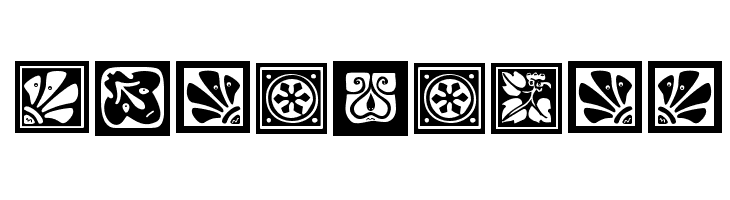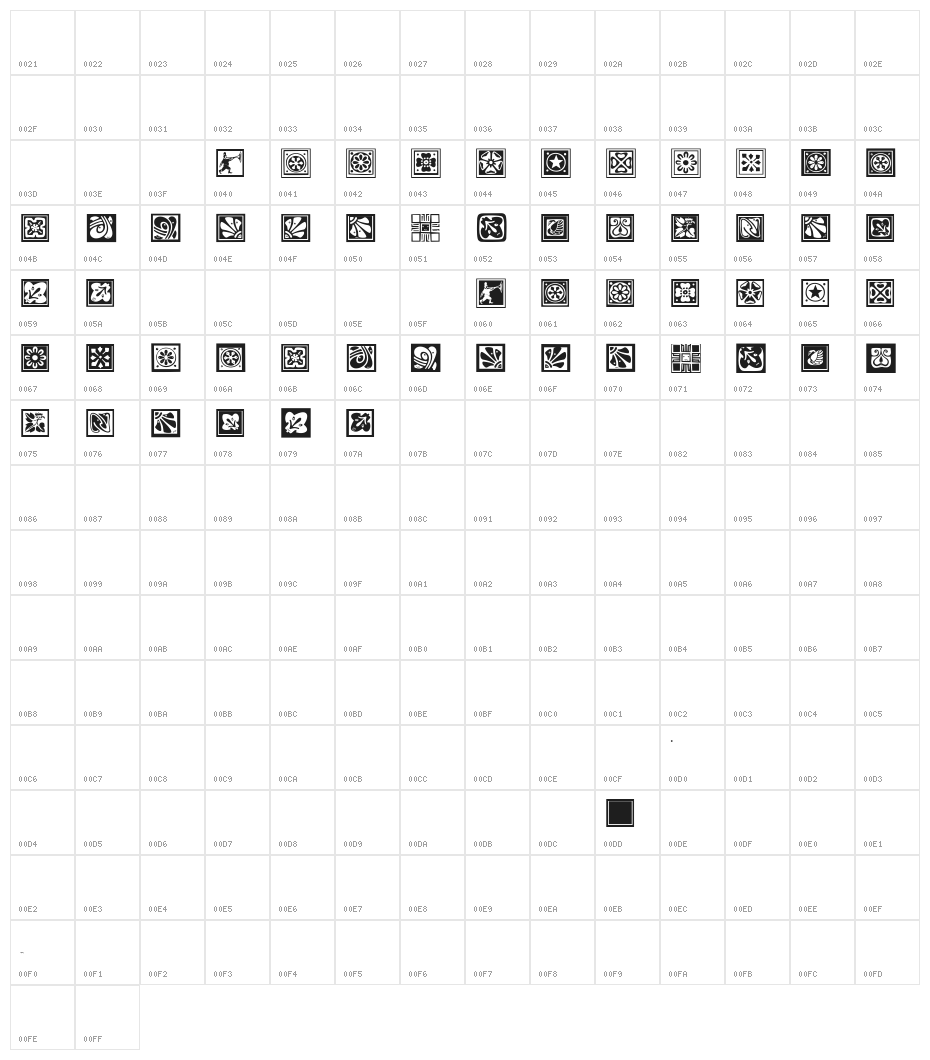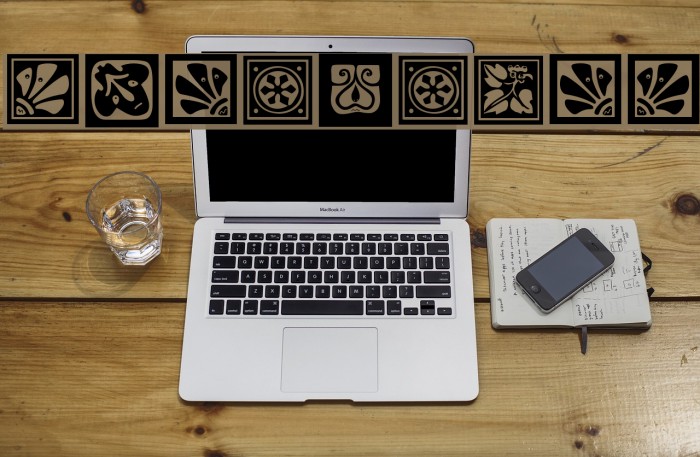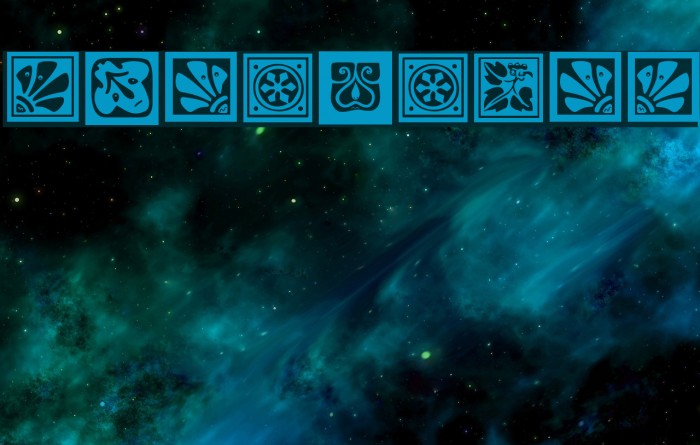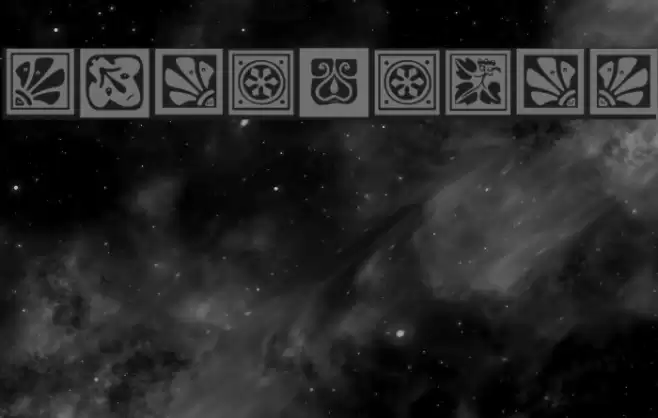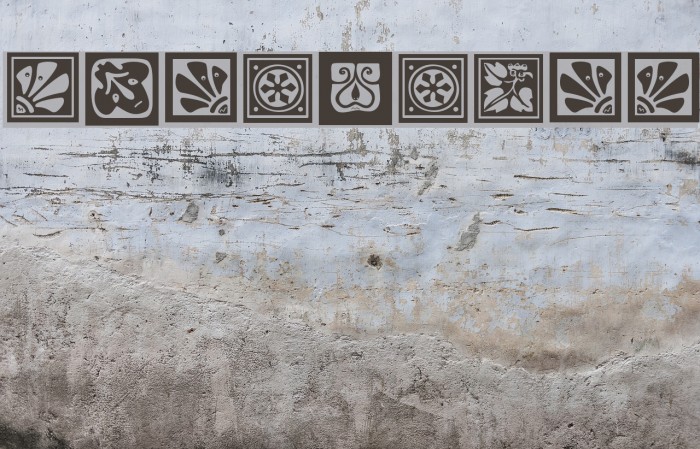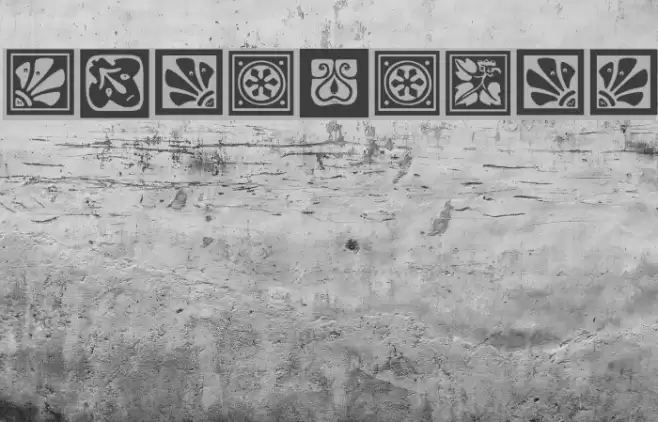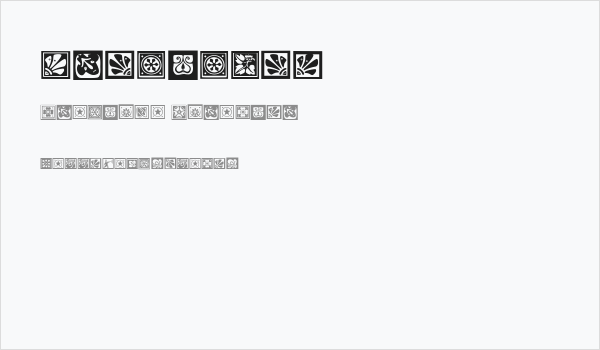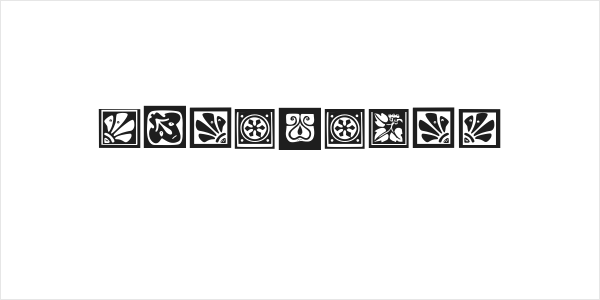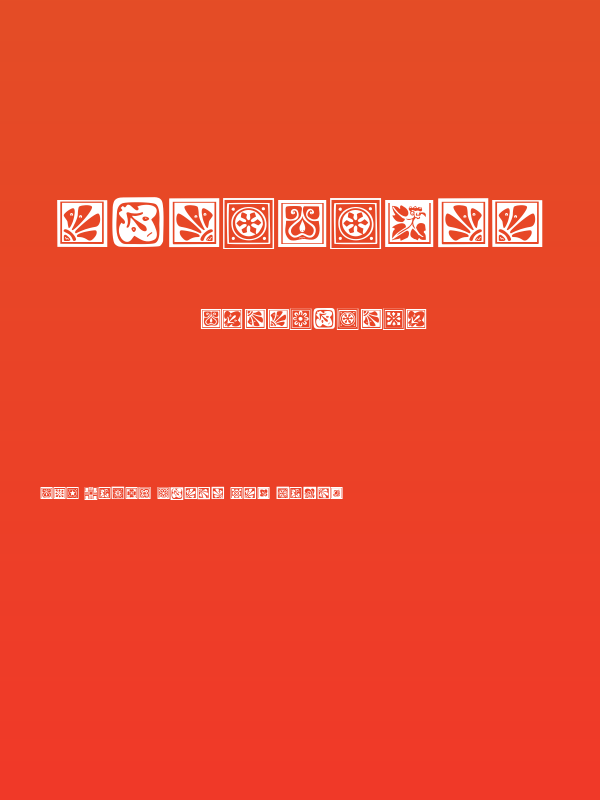
OrnataUno Font
OrnataUno Description
This is a decorative font composed entirely of intricate ornamental designs. Each character is enclosed within a square, featuring a variety of floral and geometric patterns. The designs are bold and detailed, with a high contrast between the black and white elements, creating a striking visual impact. The font is highly stylized, making it suitable for artistic and decorative purposes rather than traditional text representation. The consistent use of square borders around each character adds a uniformity to the overall appearance, while the diversity of patterns within each square provides a rich visual texture.
| Use Case | Logos, Decorative headings, Artistic projects |
| Proposed Projects | Ideal for decorative projects such as invitations, greeting cards, artistic posters, or any design requiring a touch of elegance and intricacy. |